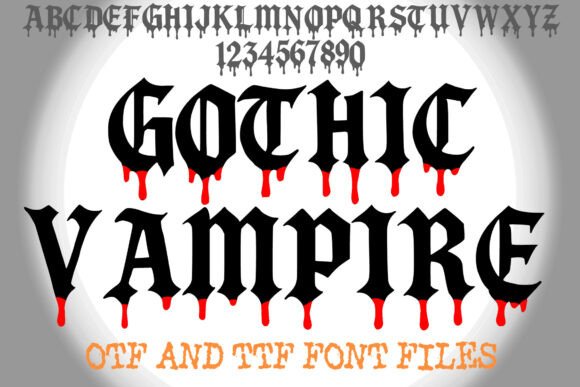
Gothic Vampire: The Ultimate Font for Dark, Dramatic Designs
Fonts are more than just a way to display text—they're a powerful design element that can shape the mood, tone, and impact of any visual project. For creators who want to evoke a sense of mystery, horror, or medieval grandeur, Gothic Vampire is a standout choice. This bold blackletter-style display font drips with gothic drama and horror flair, making it ideal for Halloween-themed designs, horror posters, vampire stories, gothic apparel, and eerie event invitations. With its sharp, medieval letterforms enhanced by blood-like drips, Gothic Vampire doesn’t just add typography; it adds atmosphere.
What Makes Gothic Vampire Unique?
The allure of Gothic Vampire lies in its visual storytelling. Each character is crafted with an attention to detail that brings out the raw intensity of gothic aesthetics. The blackletter style itself harks back to early European script forms, often associated with ancient manuscripts and religious texts. However, Gothic Vampire modernizes this look by infusing it with dark, dramatic elements such as dripping textures and jagged edges that suggest danger and intrigue.
This font isn't just about looking scary—it's about creating an emotional response. Whether you're designing a haunted house invitation, a promotional poster for a vampire novel, or a logo for a gothic clothing brand, Gothic Vampire has the power to transform your message into something unforgettable. Its unique features make it stand apart from generic horror fonts that lack depth and personality.
Gothic Aesthetics in Modern Design
In recent years, there's been a resurgence of interest in all things gothic. From fashion to music, film to literature, audiences are drawn to themes of darkness, romance, and the supernatural. Designers across industries have capitalized on this trend by incorporating gothic elements into their work. Fonts like Gothic Vampire play a crucial role in these efforts, offering a ready-made tool to inject the right amount of dread and elegance into projects without requiring complex illustration or graphic work.
For businesses and creatives targeting niche markets—such as fans of horror films, fantasy novels, or alternative fashion—Gothic Vampire provides a shortcut to authenticity. It eliminates the need to search for multiple design assets to create a cohesive look. Instead, one font can serve as the cornerstone of a visually compelling campaign.
Real-World Applications of Gothic Vampire
- Halloween Marketing: Brands promoting seasonal products or events can use Gothic Vampire to craft headlines that immediately set the spooky tone. Think haunted attraction posters, costume shop banners, or themed restaurant menus.
- Book Covers and Titles: Authors writing in the horror or fantasy genres benefit from Gothic Vampire’s ability to capture the essence of their story visually. A well-designed title using this font can entice readers even before they read a single word.
- Event Invitations: Weddings, art exhibitions, or underground music events with a gothic theme can leverage Gothic Vampire to communicate exclusivity and atmosphere through typography alone.
- Apparel Branding: T-shirt designers and fashion entrepreneurs can use Gothic Vampire for logos or taglines that resonate with customers seeking edgy, alternative styles.
- Video Game UI: Indie game developers often rely on strong visuals to convey genre and mood. Gothic Vampire can be used in titles, buttons, or narrative elements to enhance immersion.
Why Gothic Vampire Fits Into Today’s Creative Workflow
Moreover, the rise of no-code and low-code design platforms has made it easier for non-designers to create professional-looking content. Fonts like Gothic Vampire empower users to elevate their projects without needing advanced skills. Simply applying the font can dramatically shift the visual weight and tone of a piece, saving time while maximizing creative output.
Designing with Gothic Vampire: Best Practices
To get the most out of Gothic Vampire, consider the following tips:
- Use Sparingly: Because of its bold nature, Gothic Vampire works best as a headline or title rather than body text. Overuse can overwhelm the reader and reduce readability.
- Pair Thoughtfully: When combining with other fonts, choose complementary styles that contrast but don’t clash. Sans-serif or minimalist fonts often balance Gothic Vampire well in layouts.
- Play with Color and Effects: While traditionally associated with red and black, Gothic Vampire can be stylized further with overlays, shadows, or metallic effects to match different moods and mediums.
As trends continue to evolve toward more personalized and immersive experiences, the role of typography will only grow. Fonts like Gothic Vampire are helping redefine what it means to communicate visually in the digital age. So if you're looking to bring a little more drama, depth, and darkness into your next project, it’s time to explore what Gothic Vampire can do for you.